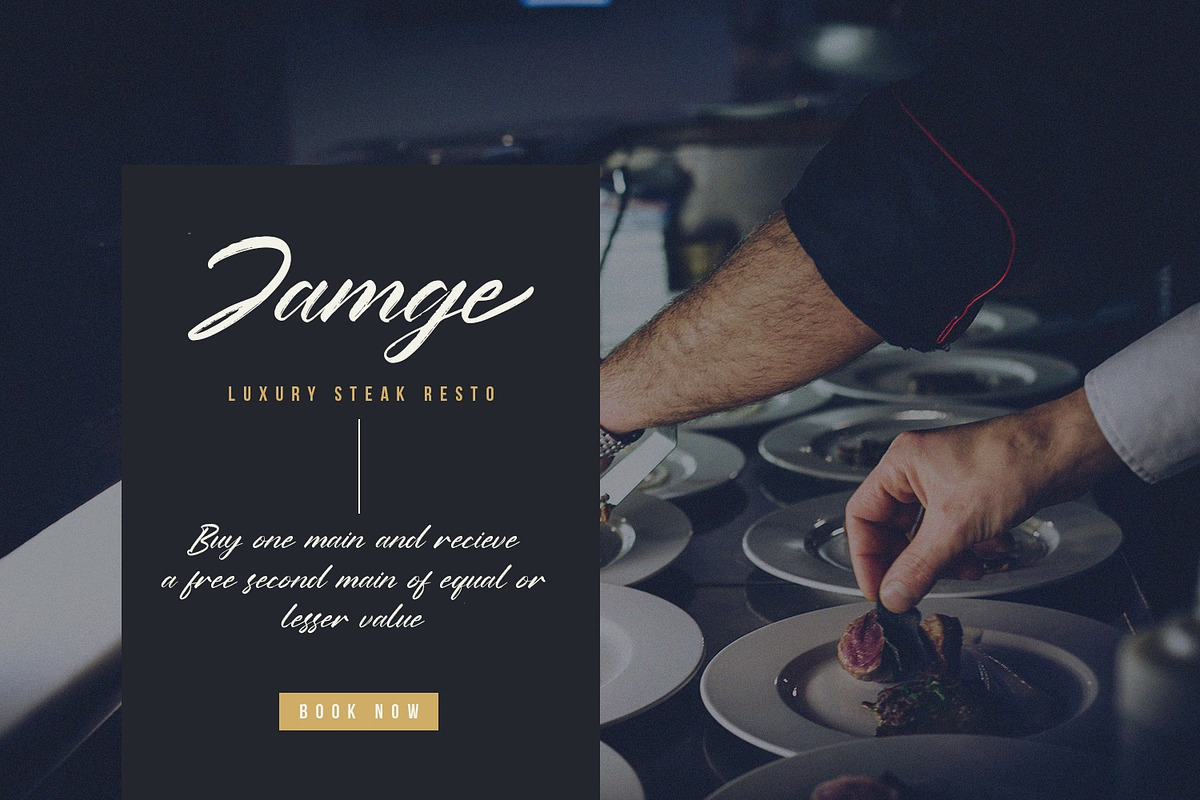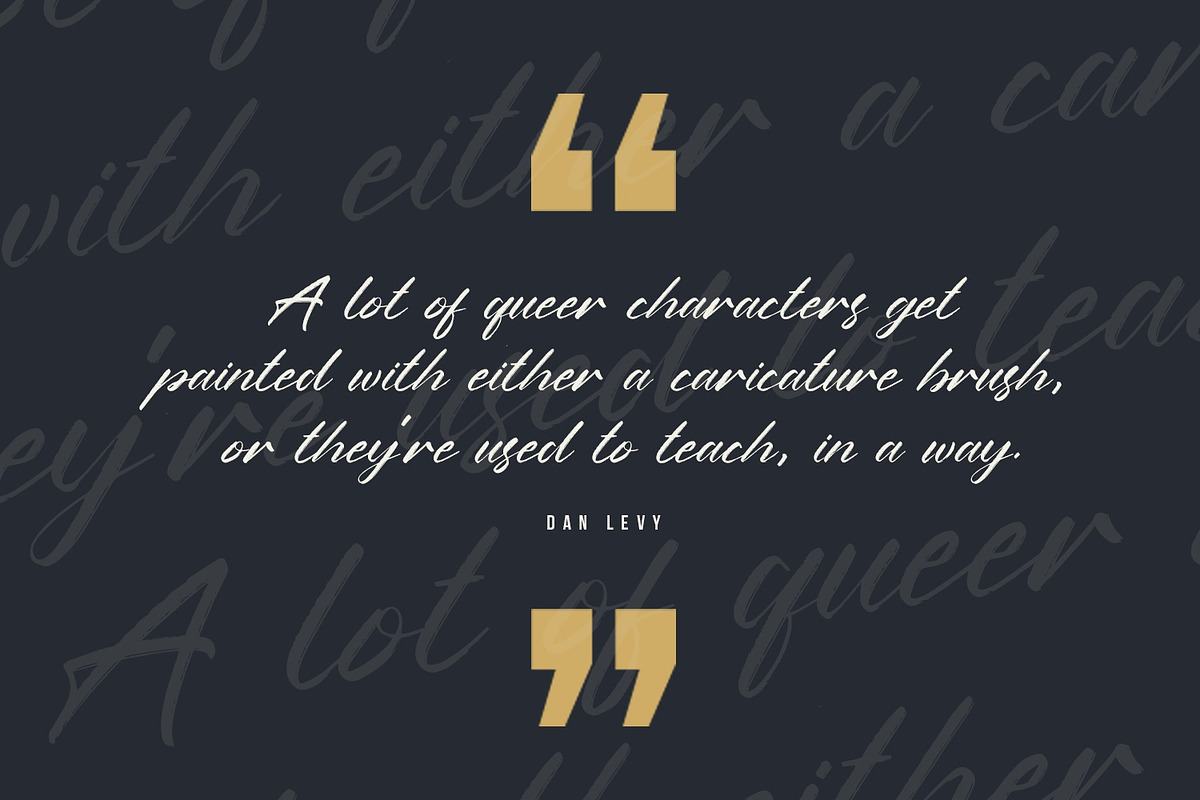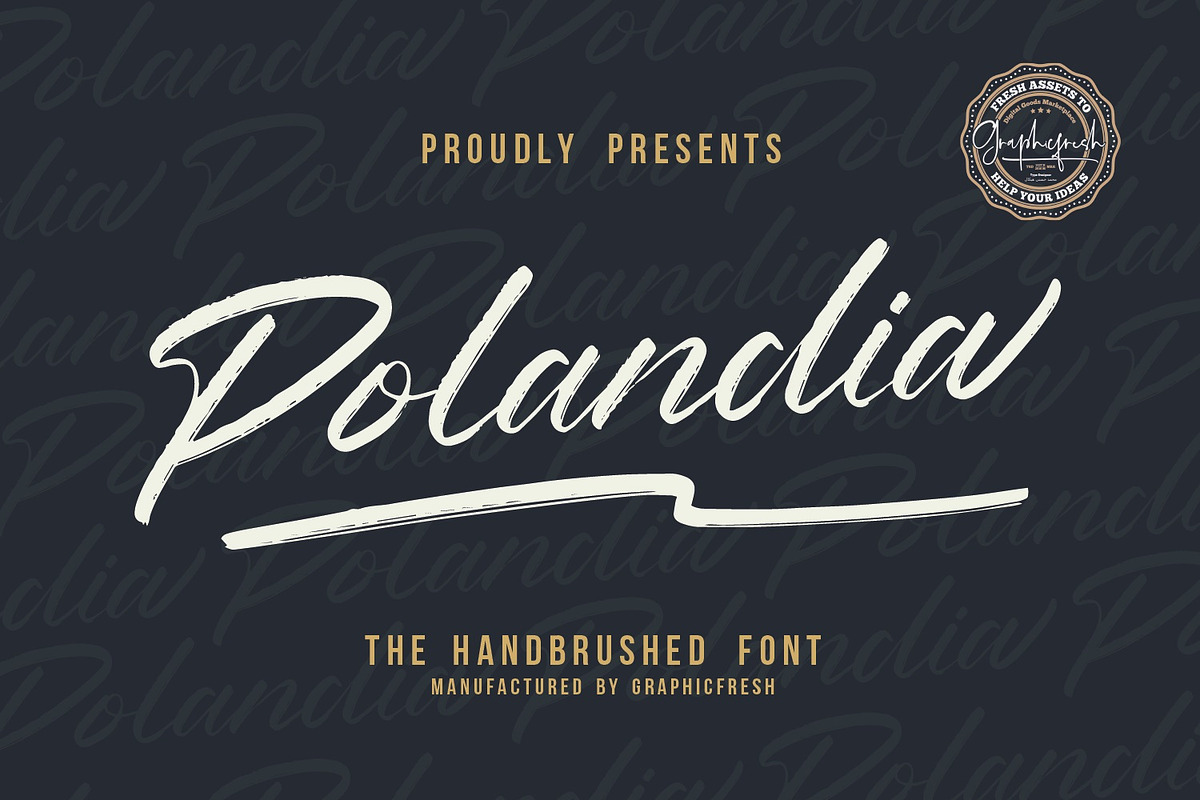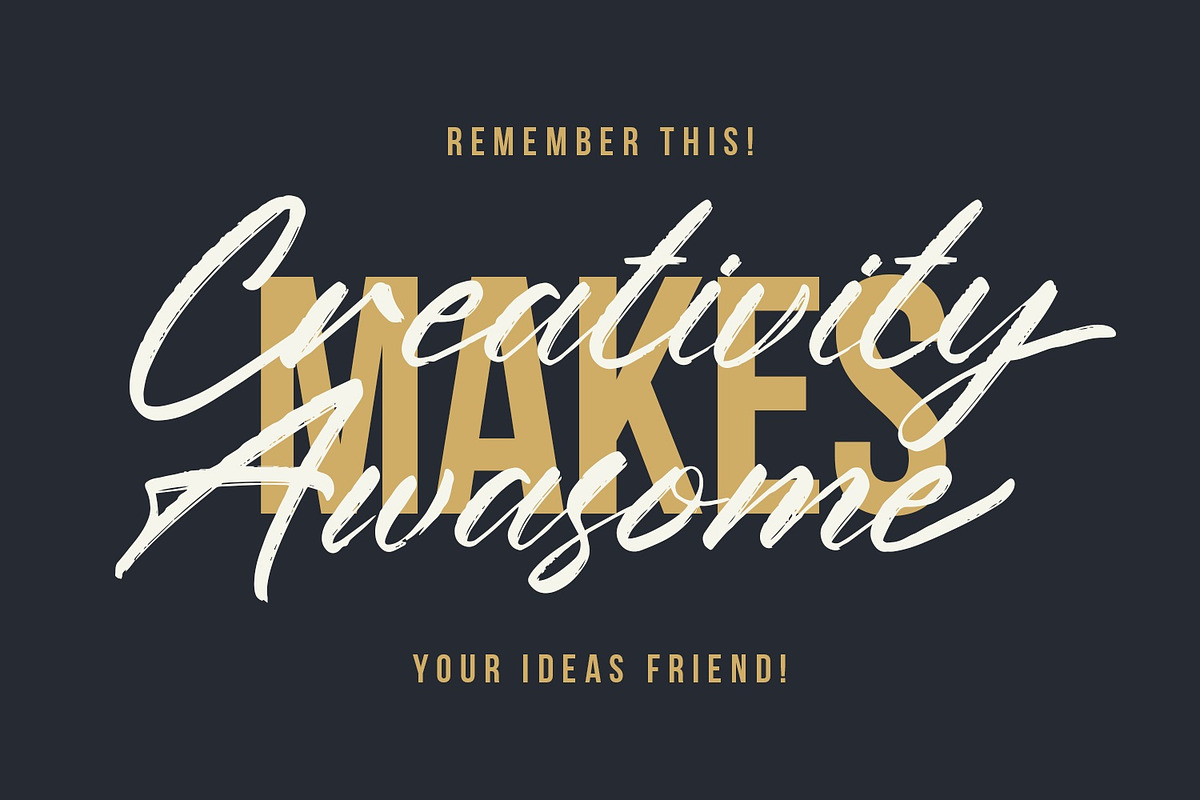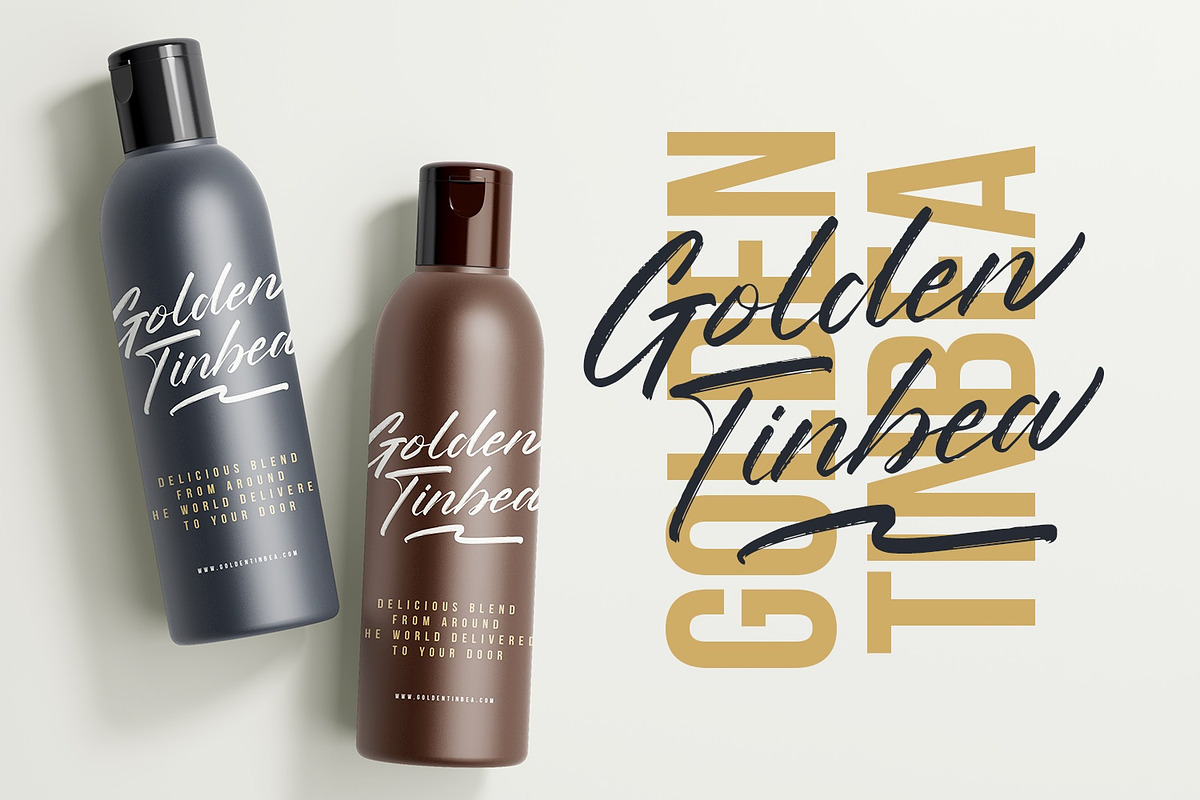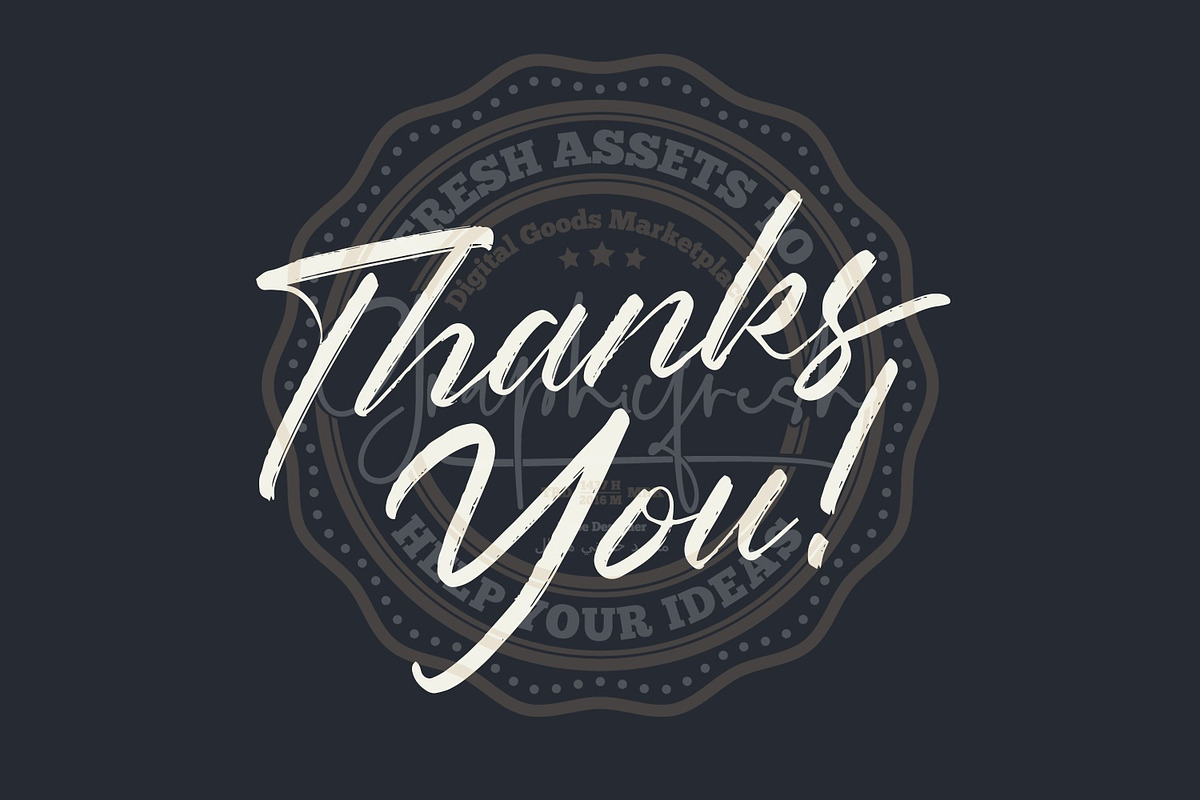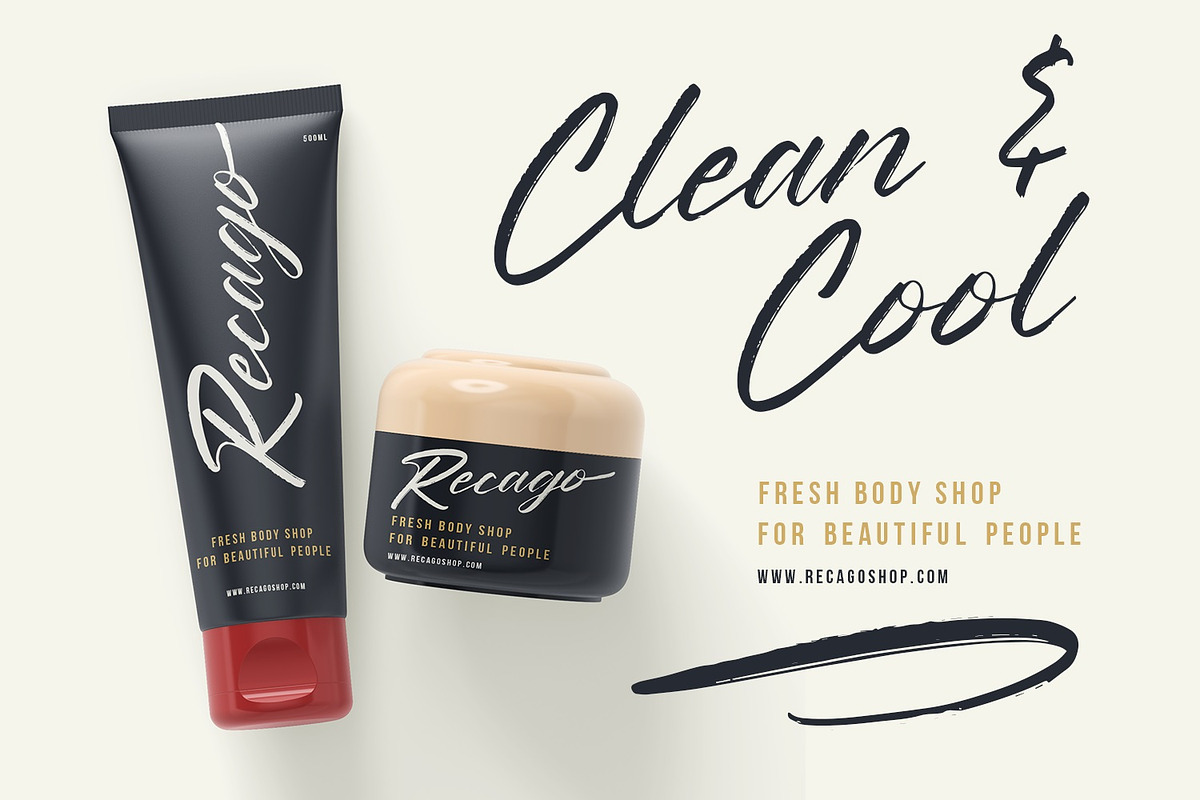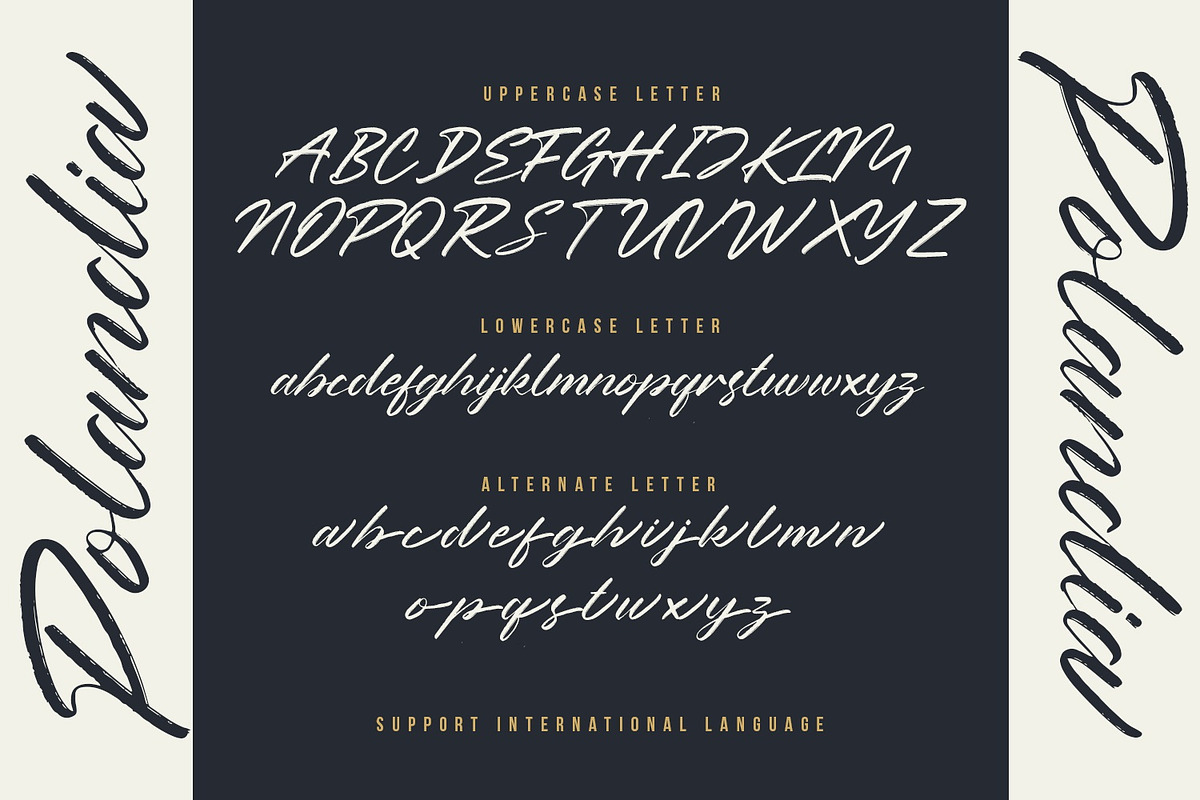
Polandia - The Handbrushed Font
Introducing Polandia - The Handbrushed Font. It comes with an elegant and modern style which is perfect to make any design stand out! This font is perfect for branding, wedding invites, magazines, mugs, business cards, quotes, posters, and more.
Suitable for Headlines, Logotypes, Signs, Posters, Letterhead, T-Shirt and many more.
Support International Language
- Polandia Type Features:
- Alternates
- Suitable for Headlines, Logotypes, Signs, Posters, Letterhead, T-Shirt and many more.
- Support International Language
Polandia - The Handbrushed Font by Graphicfresh fits naturally into Branding, posters, packaging, typography.